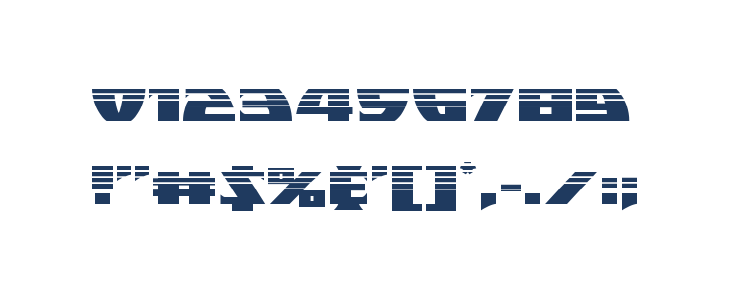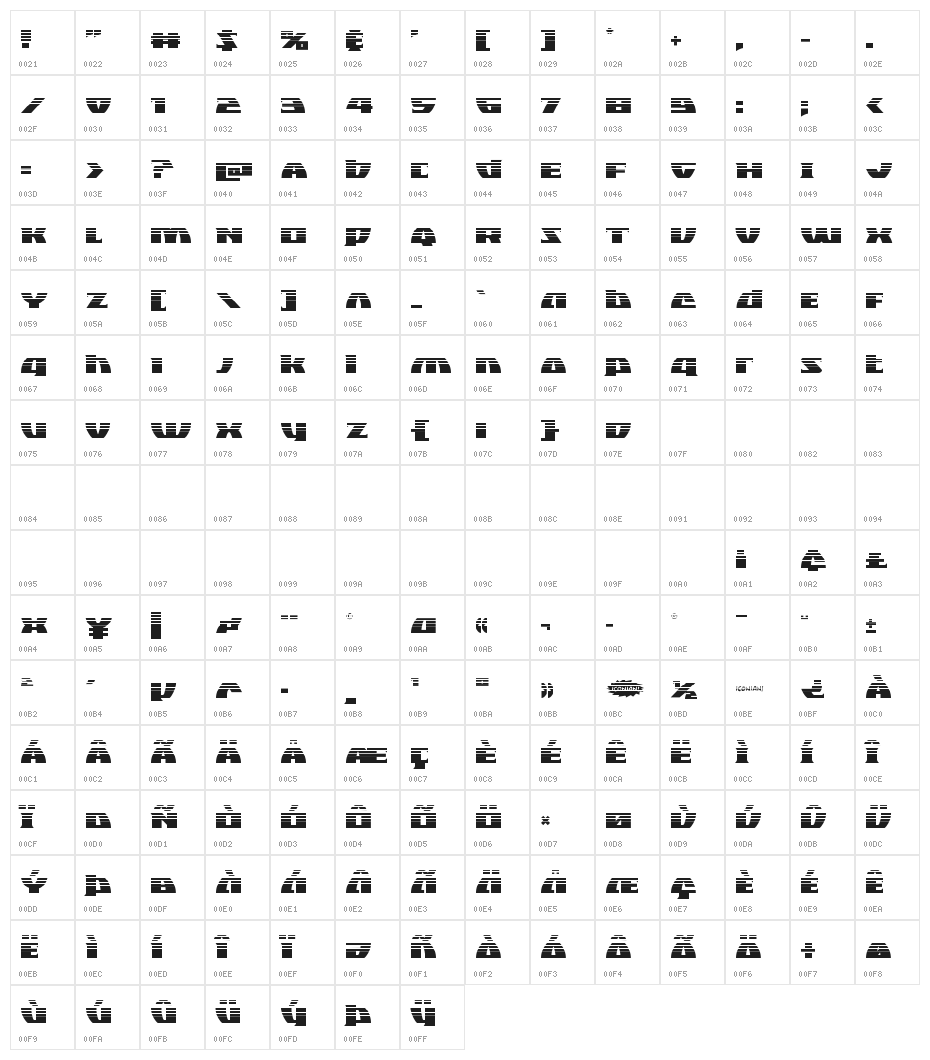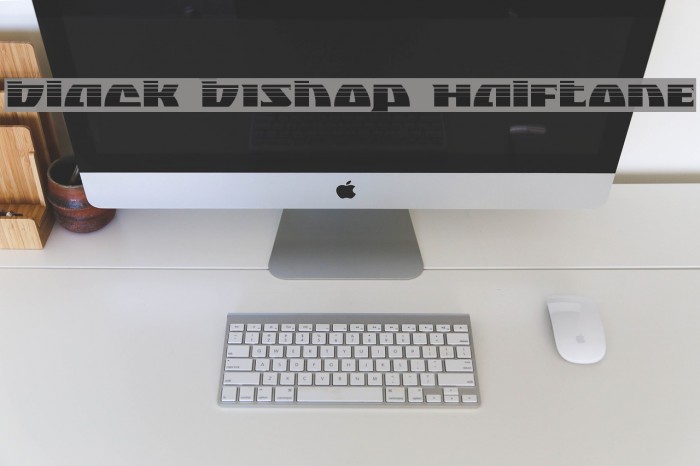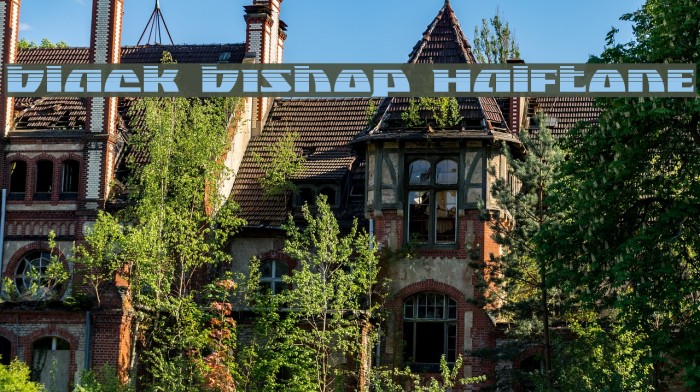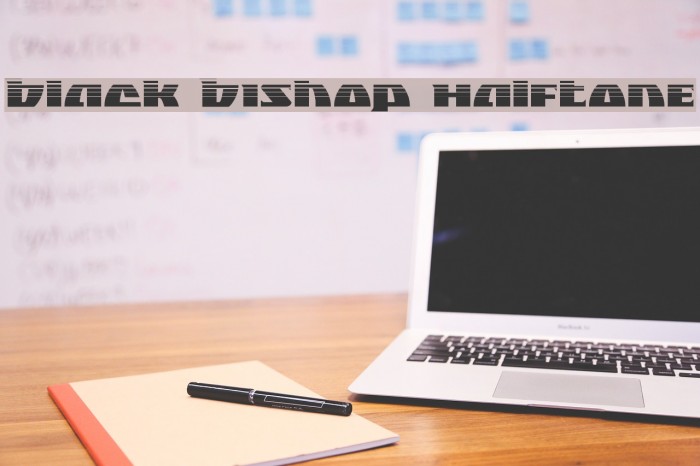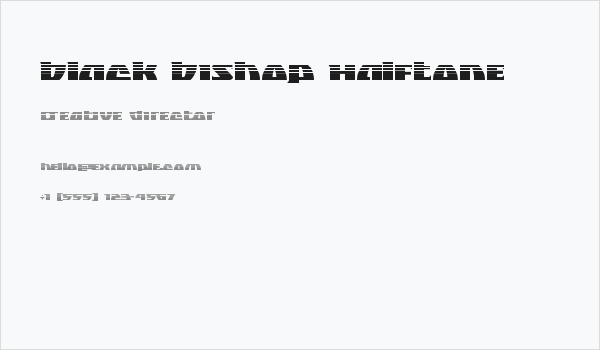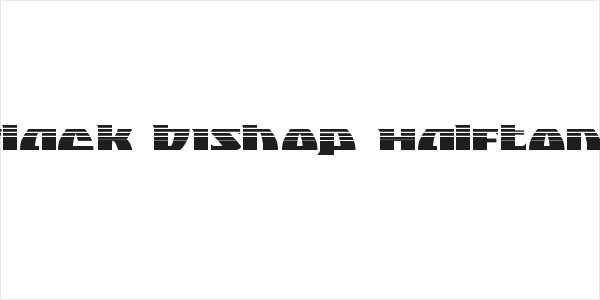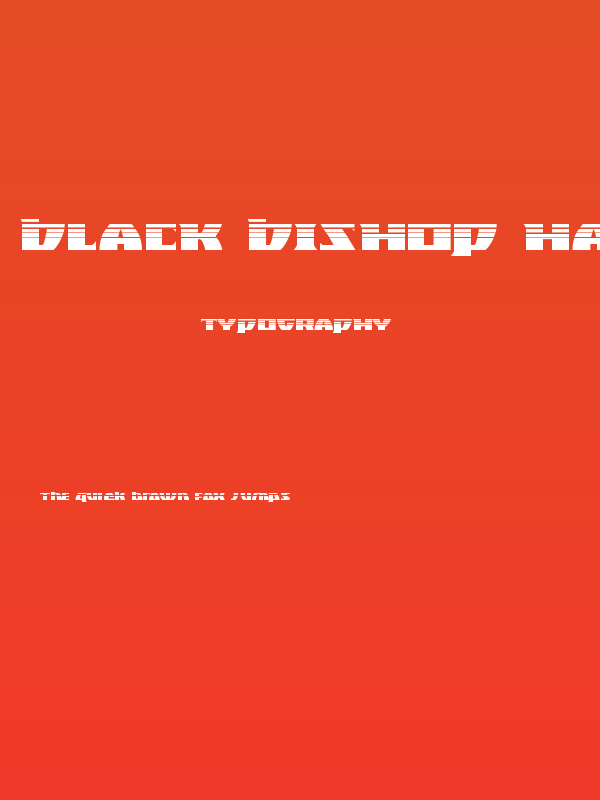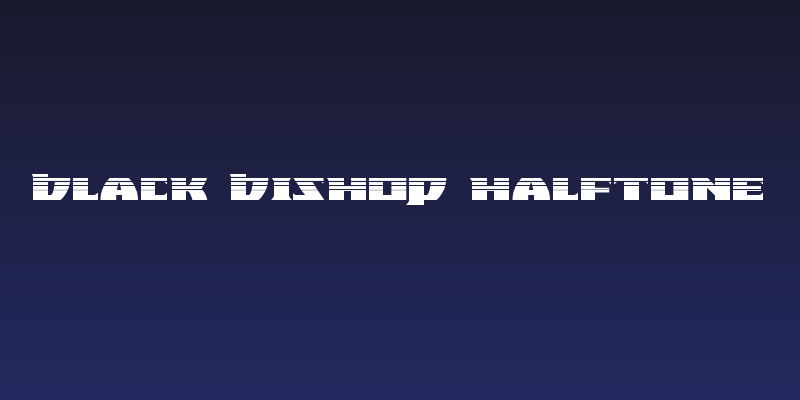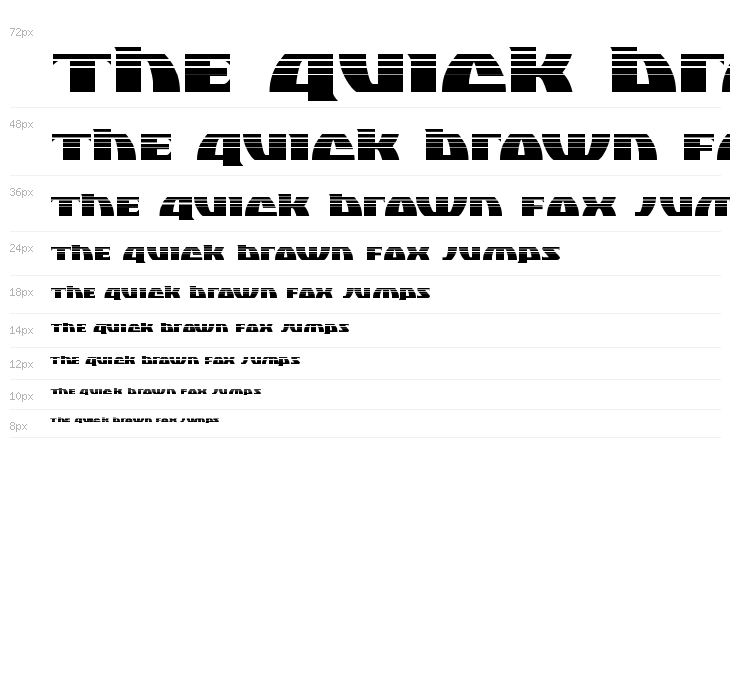
Black Bishop Halftone Font
Black Bishop Halftone Description
This font features a bold, geometric style with a halftone effect, creating a striking visual impact. The characters are constructed with thick, solid lines interspersed with horizontal gaps, giving them a unique, segmented appearance. This design choice adds a sense of movement and modernity, while the overall structure remains highly legible. The uppercase and lowercase letters maintain a consistent width, contributing to a cohesive look. The numerals and special characters follow the same design principles, ensuring uniformity across all glyphs. This font is ideal for projects that require a bold and dynamic aesthetic.
Proposed ProjectsIdeal for posters, logos, headlines, and any design requiring a modern, dynamic look.